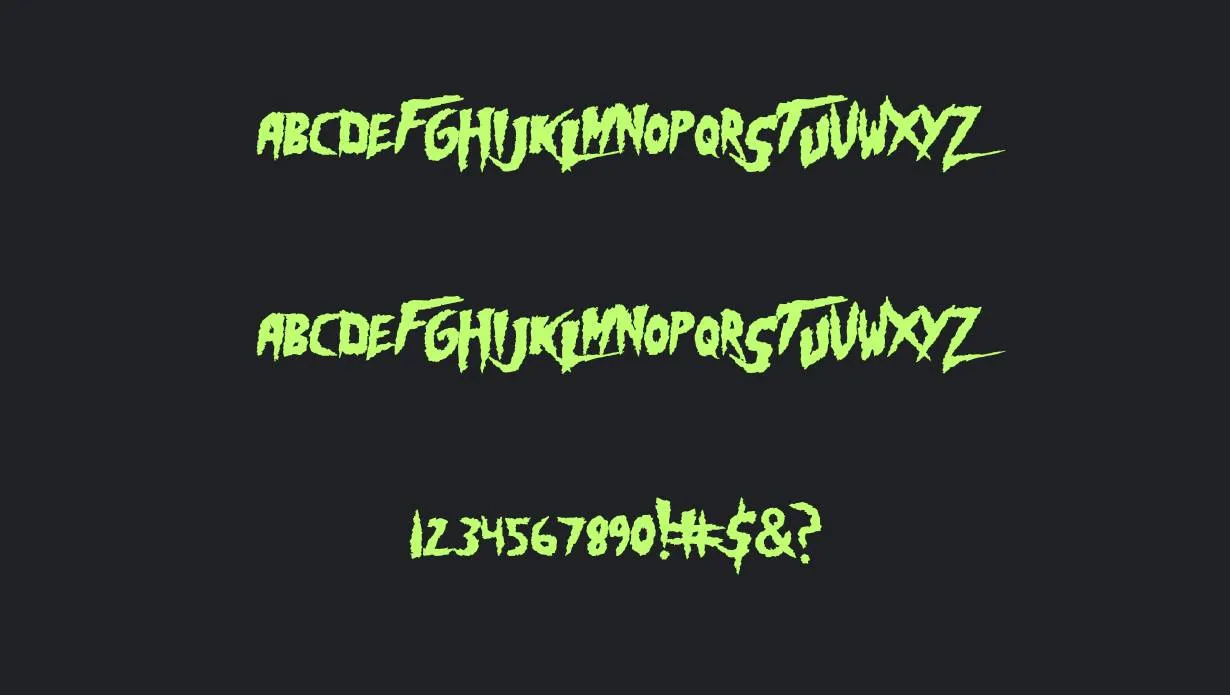
Hogan Mania Font carries a bold and dynamic presence, making it ideal for designs that demand attention. Its strong characters add emphasis to headlines, posters, or impactful visuals.
| Name | Hogan Mania Font |
| Designer | Jayde Garrow |